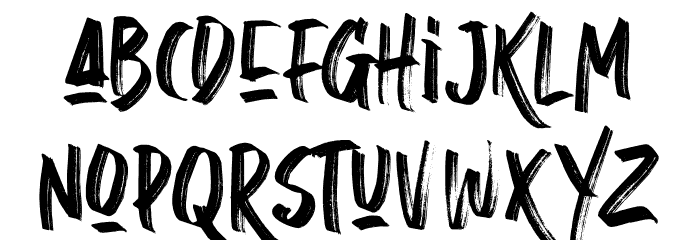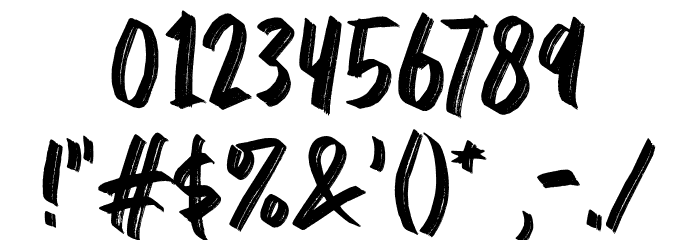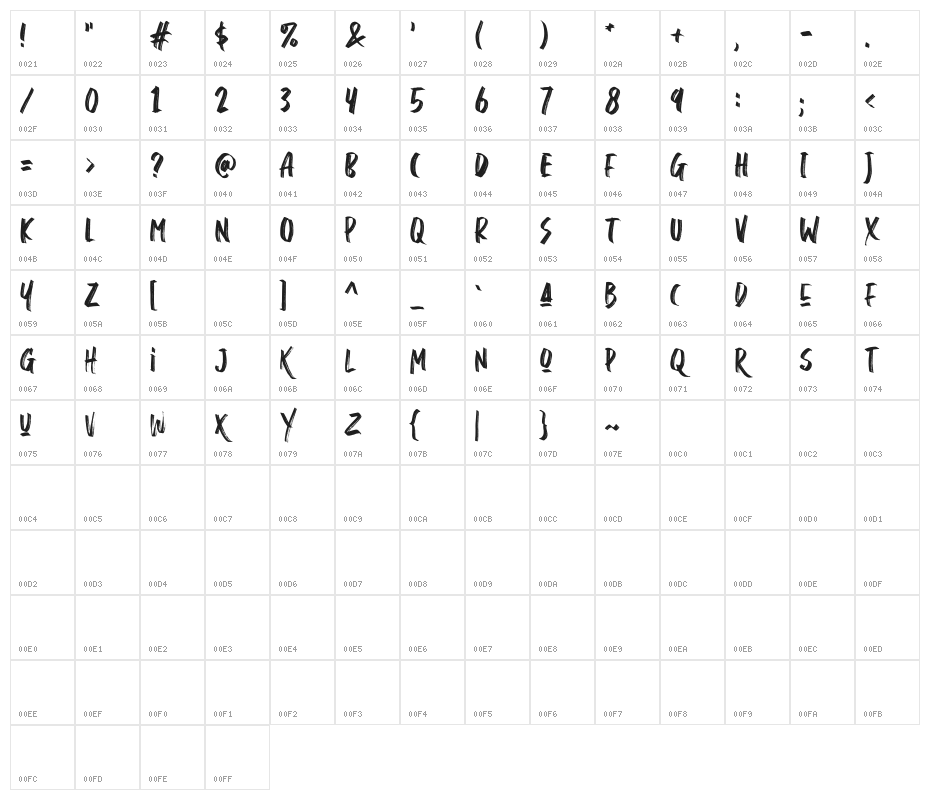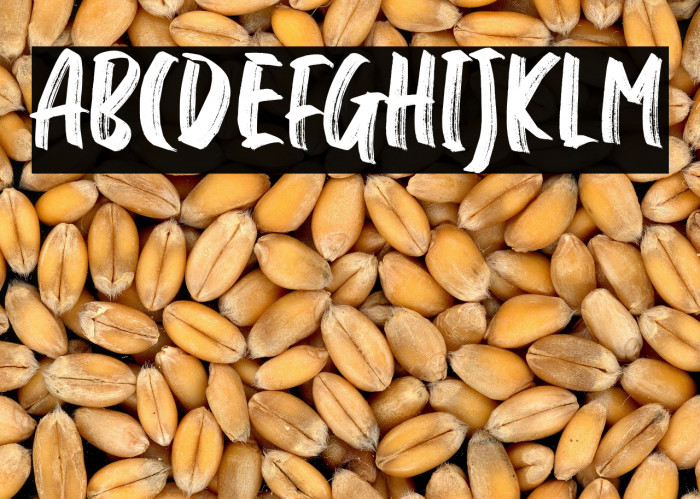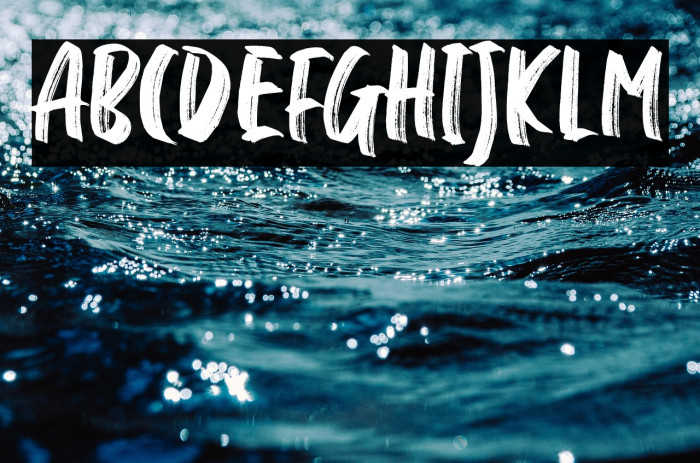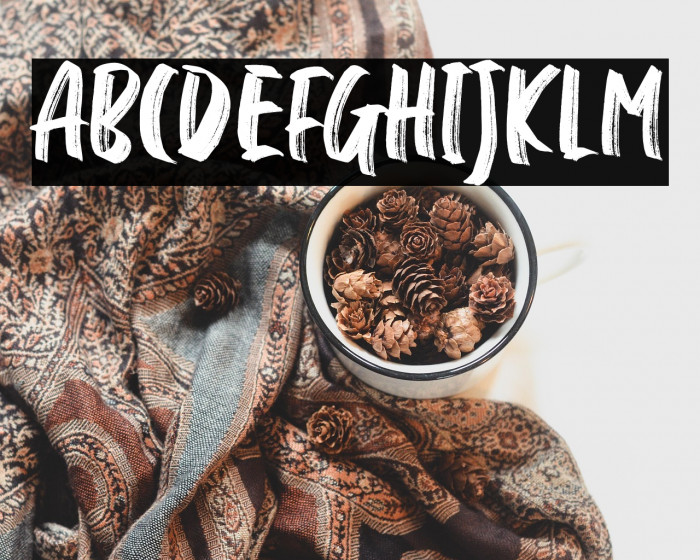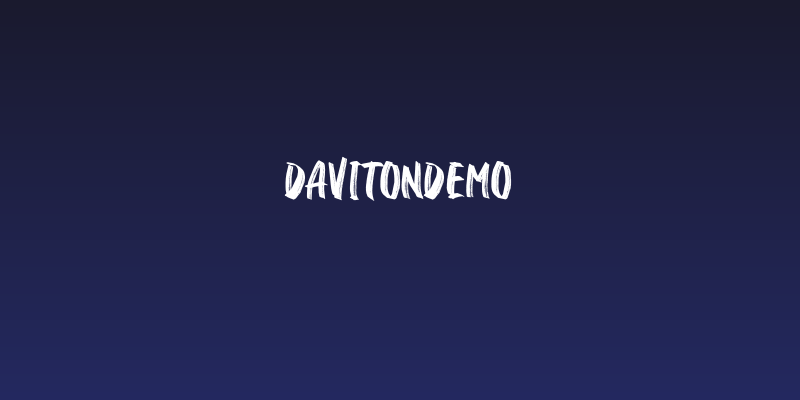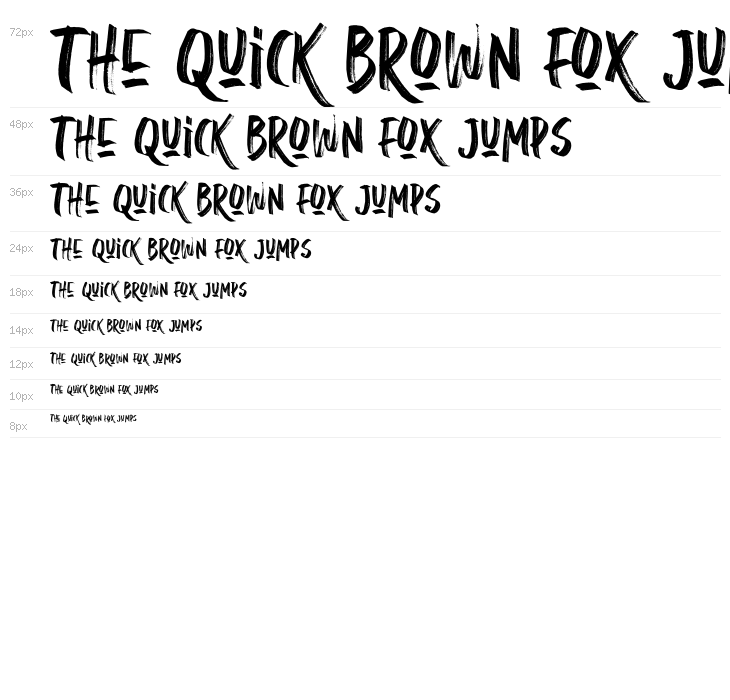
DavitonDEMO Font
This font features a bold and expressive brush style, characterized by its dynamic and energetic strokes. Each character appears hand-painted, giving it a raw and artistic feel. The letters have a slightly irregular baseline, enhancing the casual and spontaneous appearance. The uppercase and lowercase letters maintain a consistent style, with thick and thin variations that add to the visual interest. The numbers and special characters follow the same aesthetic, ensuring a cohesive look across all text elements. This font is perfect for projects that require a personal and artistic touch, such as posters, branding, and creative designs.
A bold, brush-style font with dynamic, hand-painted strokes.
- Font: DavitonDEMO
- Proposed Projects: Ideal for posters, branding, artistic designs, and creative projects.